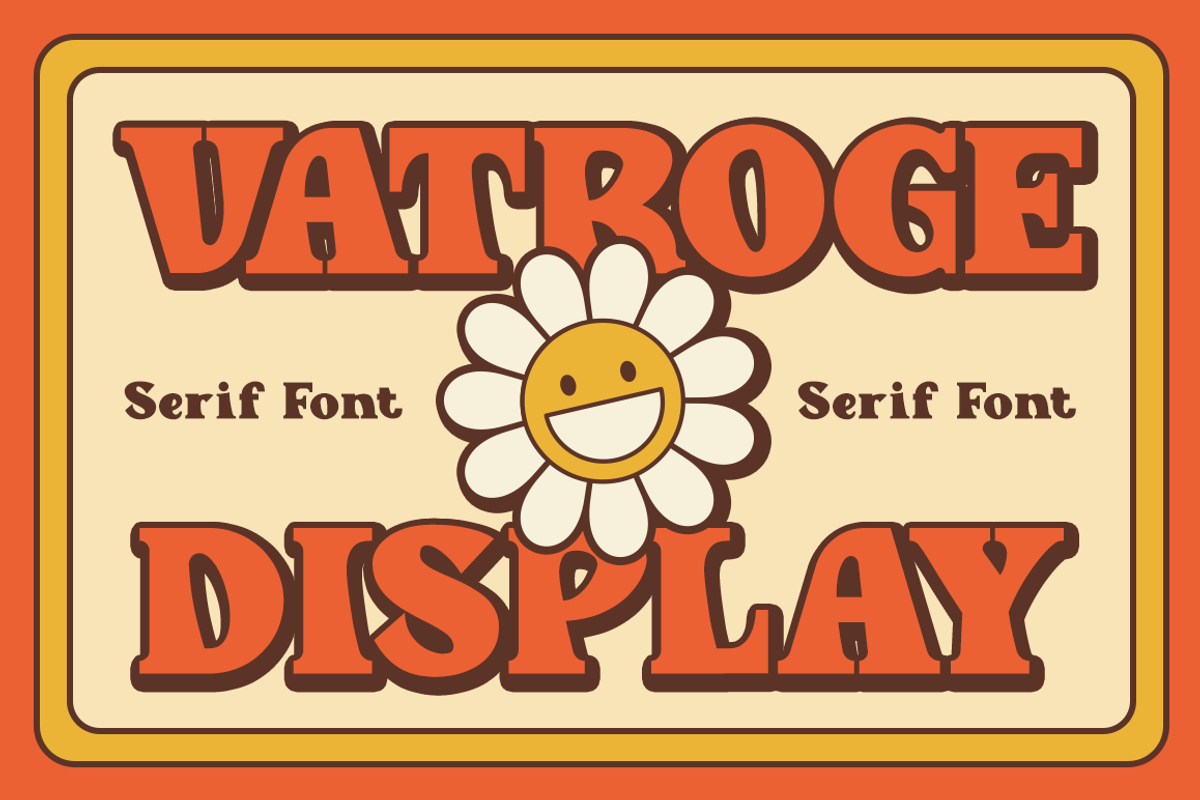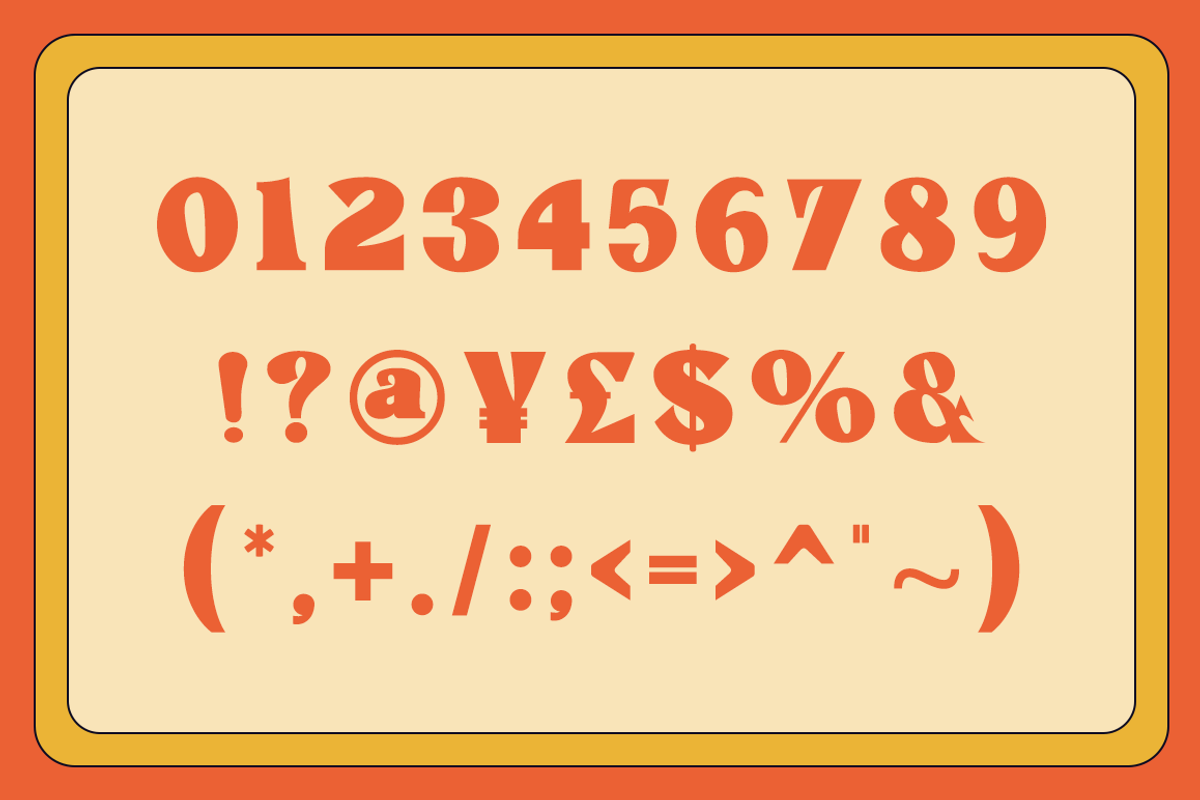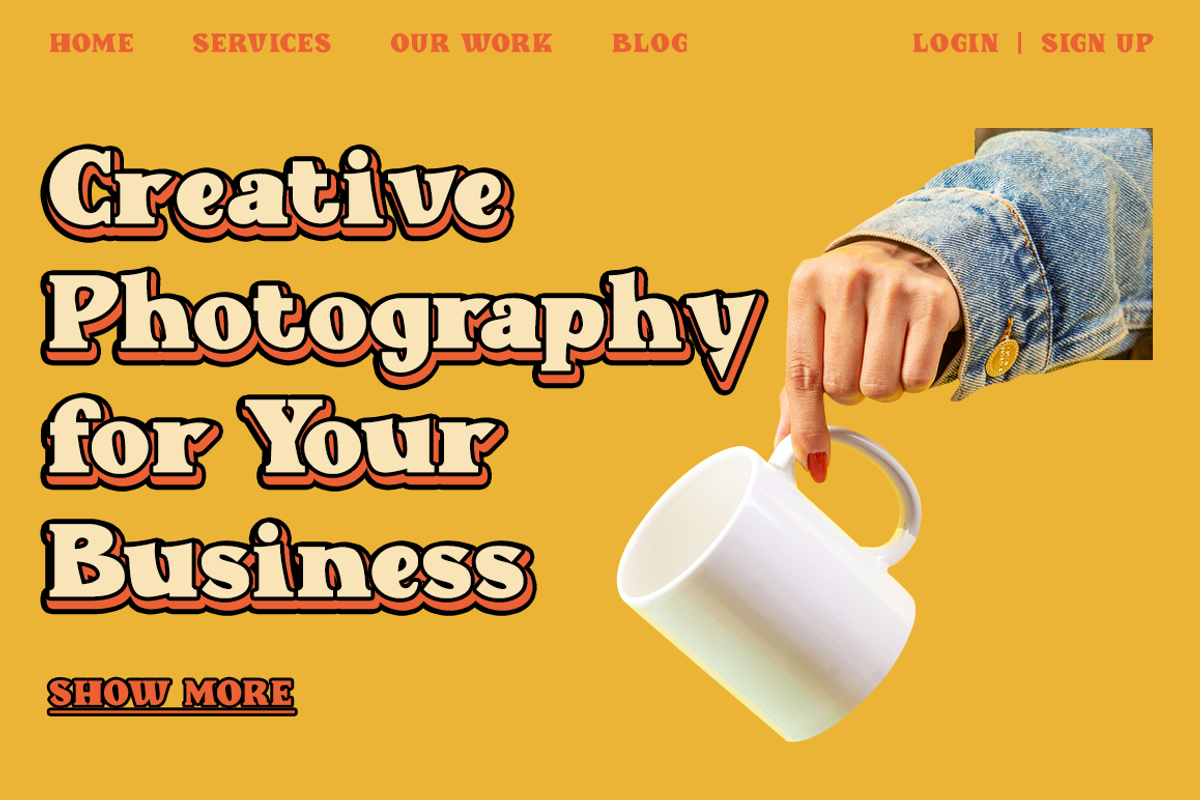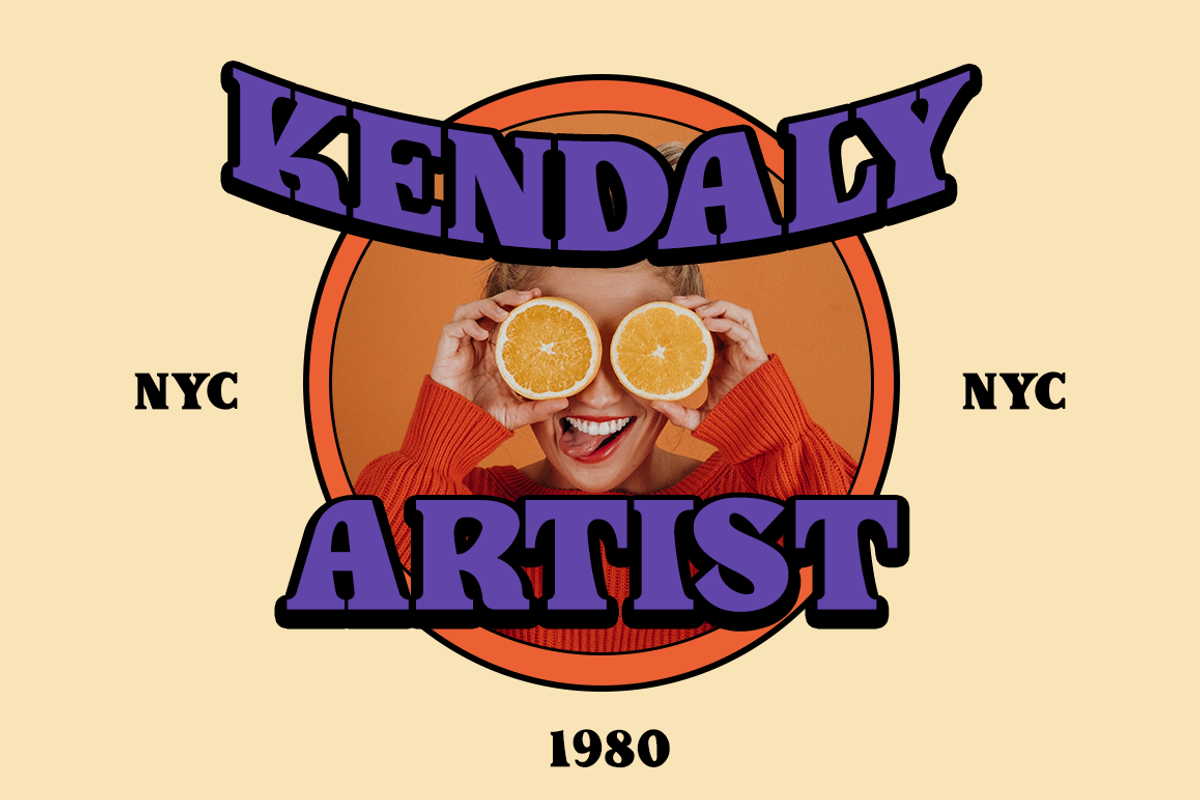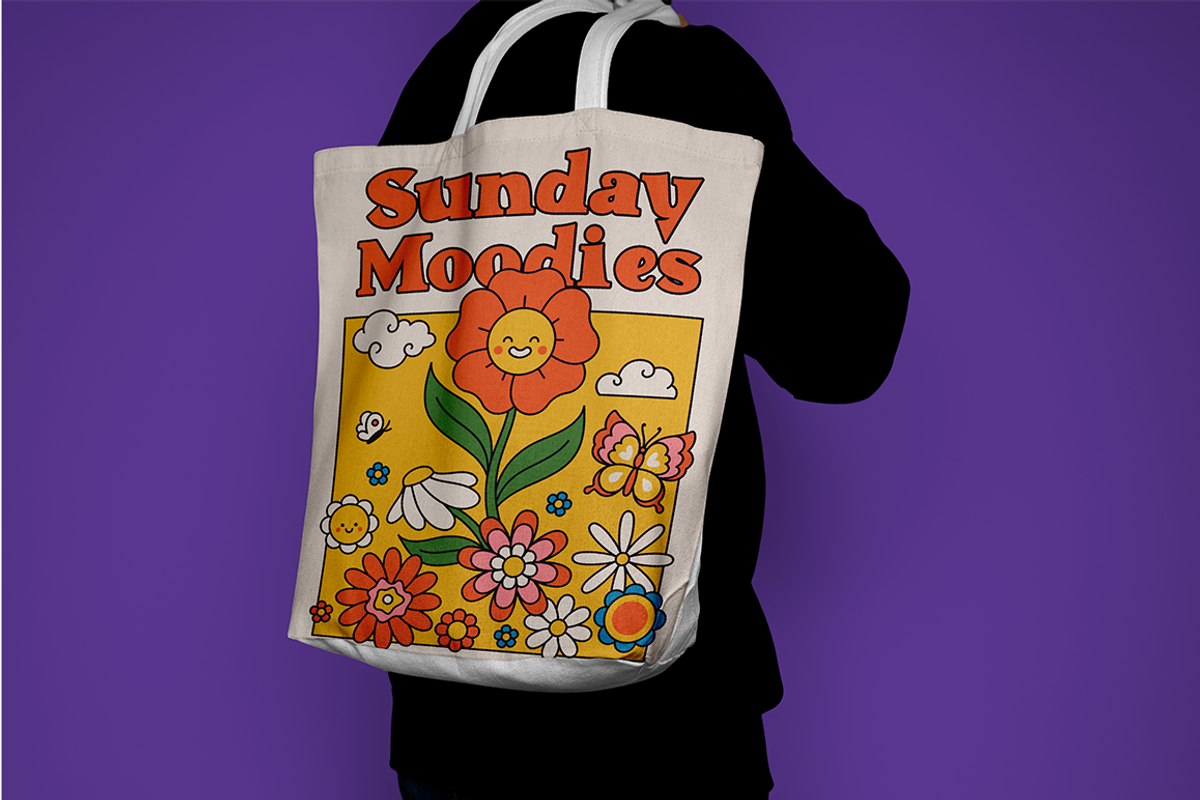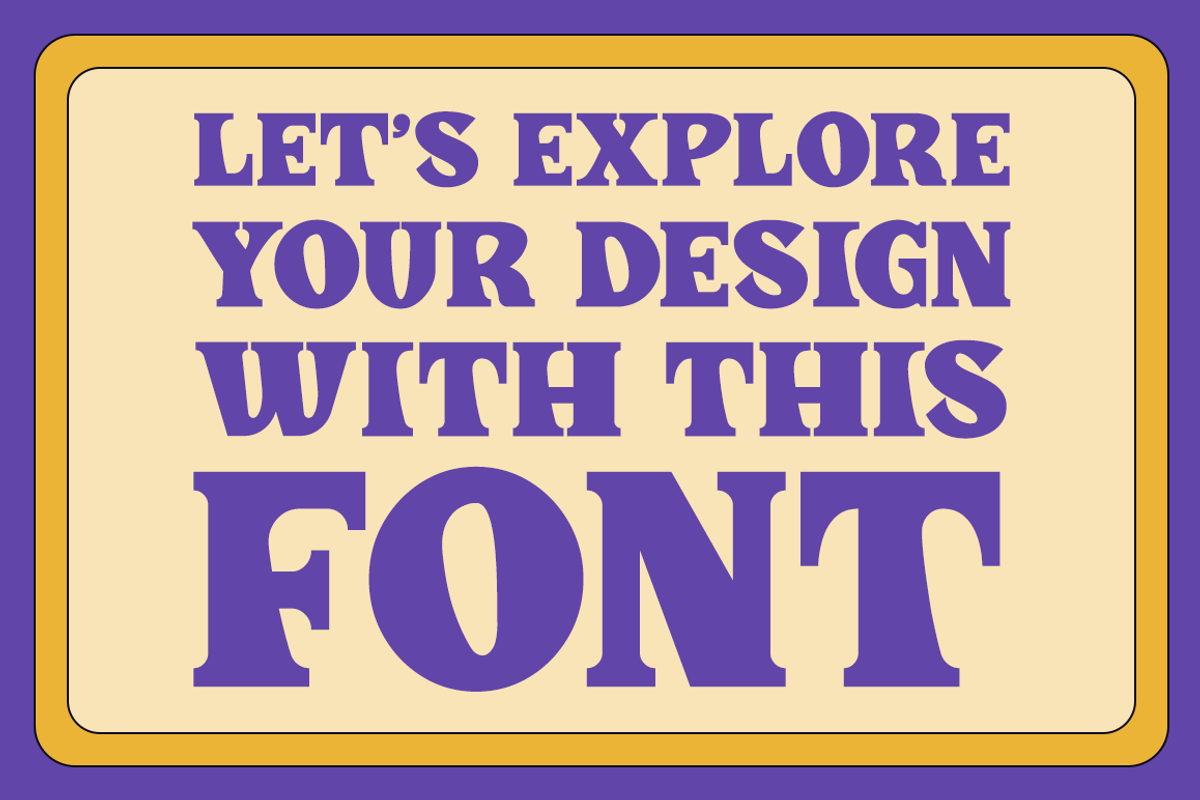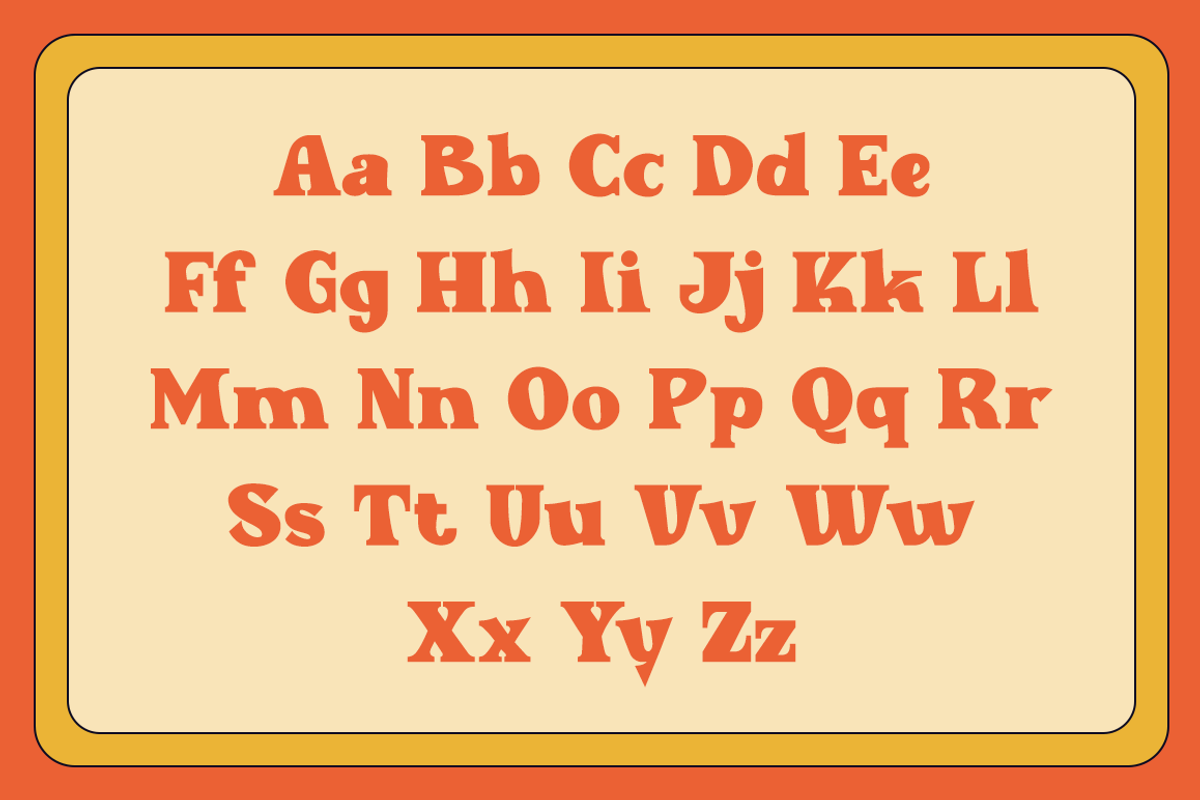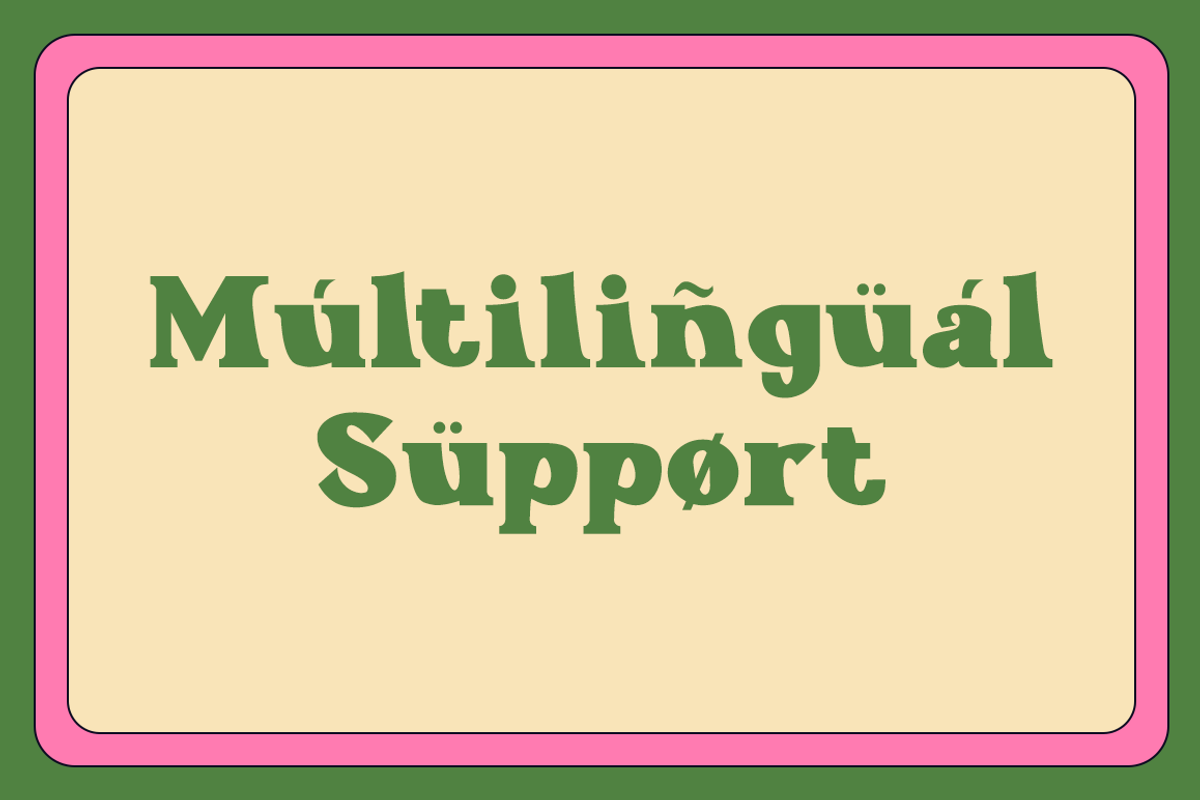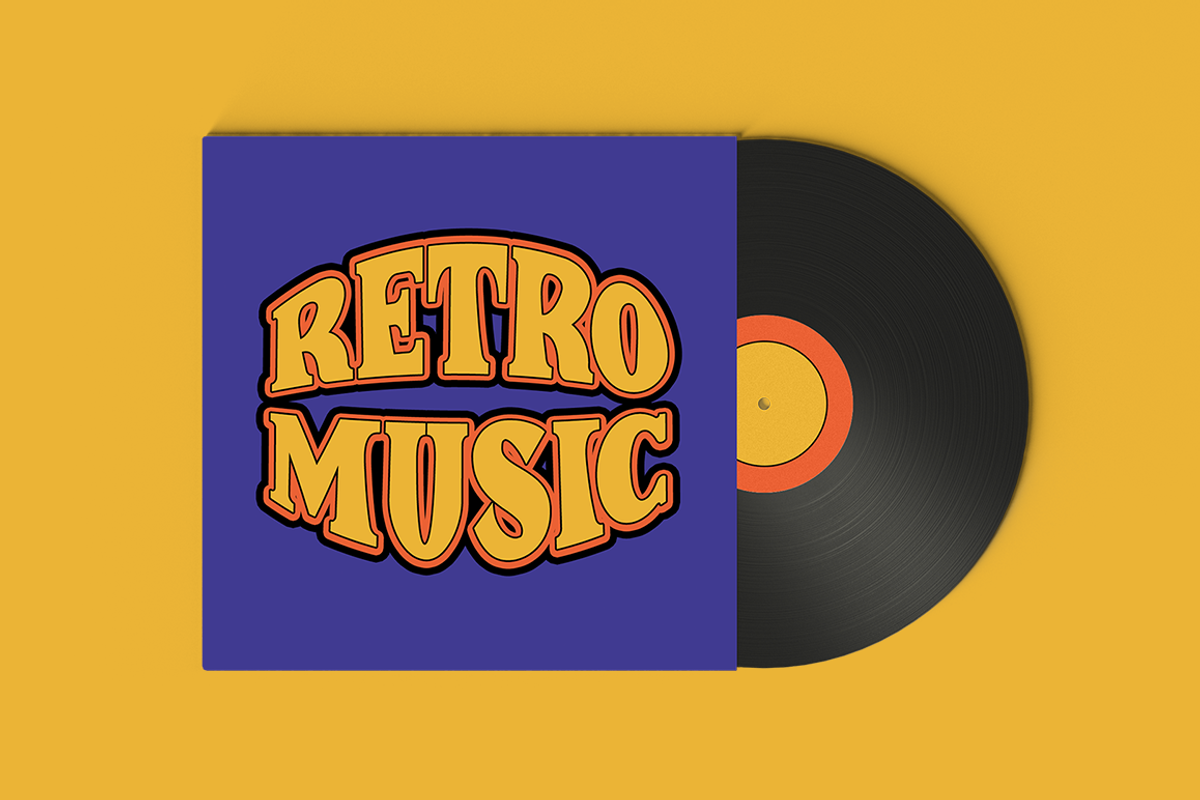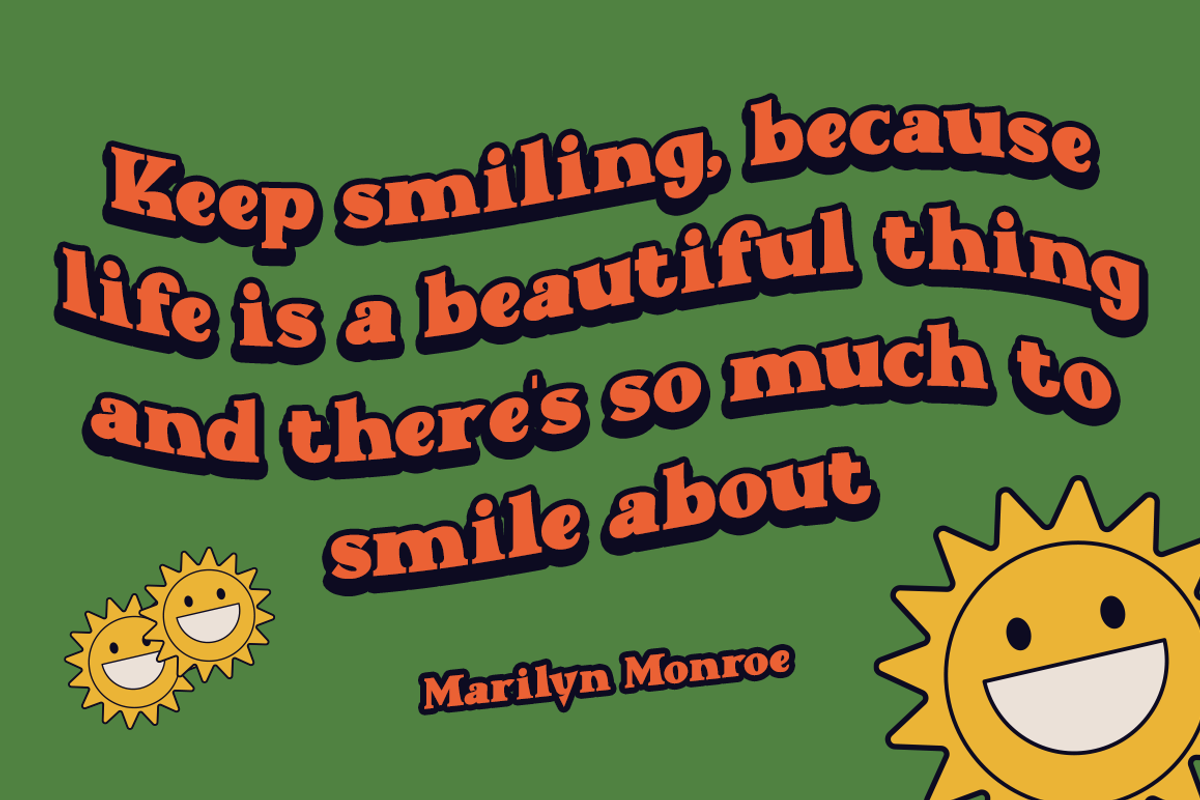
Vatroge Display
Vatroge Display is a vintage styled, genuine display font. It has a clean, thin and smooth vibe and it will be a hit for any design that you want to add it to.